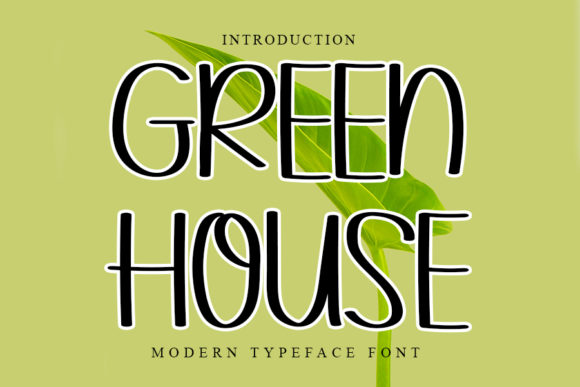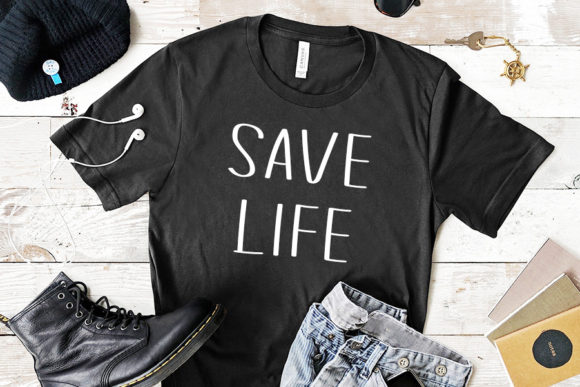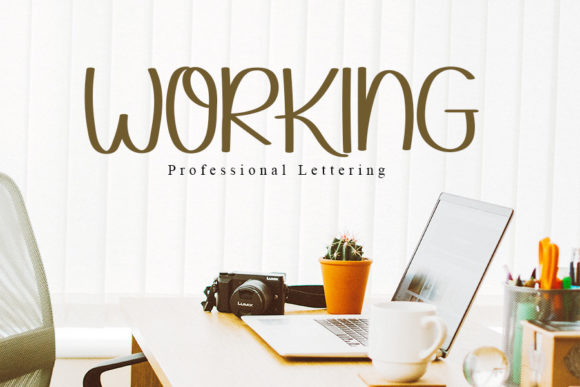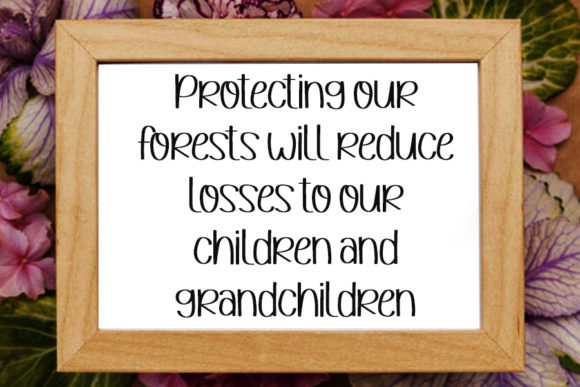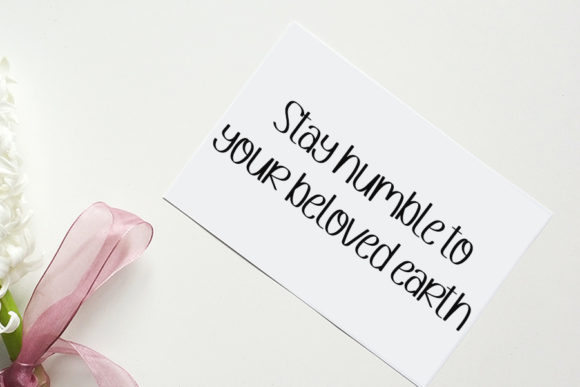
Green House Font
About Green House Font
Green House is a sweet and friendly handwritten font. Its natural and unique style makes it incredibly fitting to a large pool of designs. The only limit is your imagination!